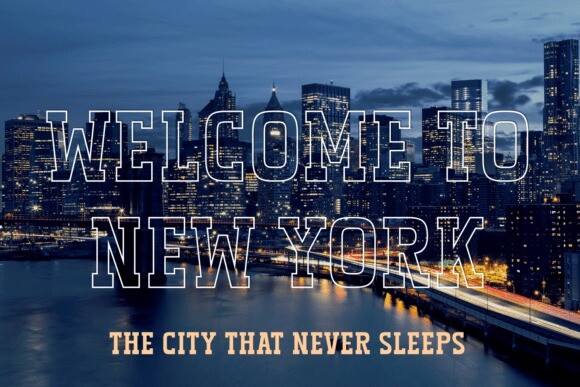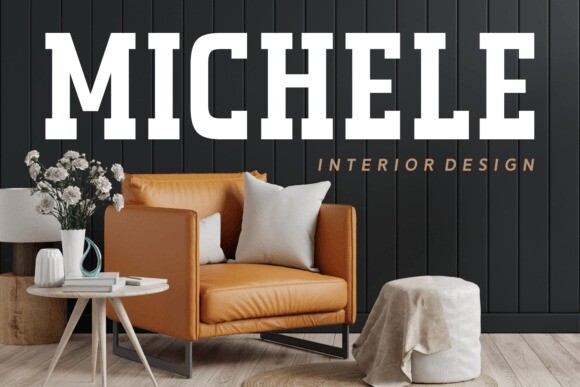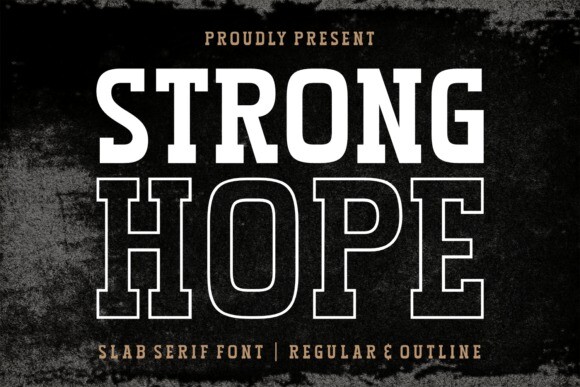
Strong Hope Font
Strong Hope Font is a robust slab serif font that combines strength with versatility. This font offers both regular and outlined variations, providing you with options for bold and impactful designs. Ideal for conveying a sense of reliability and resilience, Strong Hope adds a touch of classic style to your projects. Whether you’re creating posters, headlines, or any design that demands a bold presence, this font is your dependable companion for a strong and confident look.